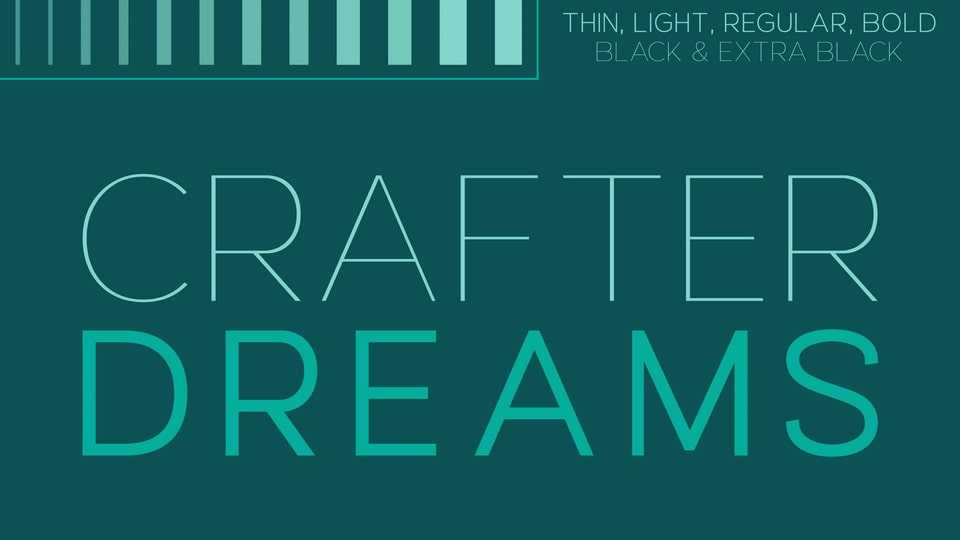
Download Crafter Dreams font, a geometric sans serif font, with an embodiment of elegance and minimalism. With 6 distinct weights, this sans serif collection seamlessly combines modernity and luxury.
Designer: Nandesign Studio